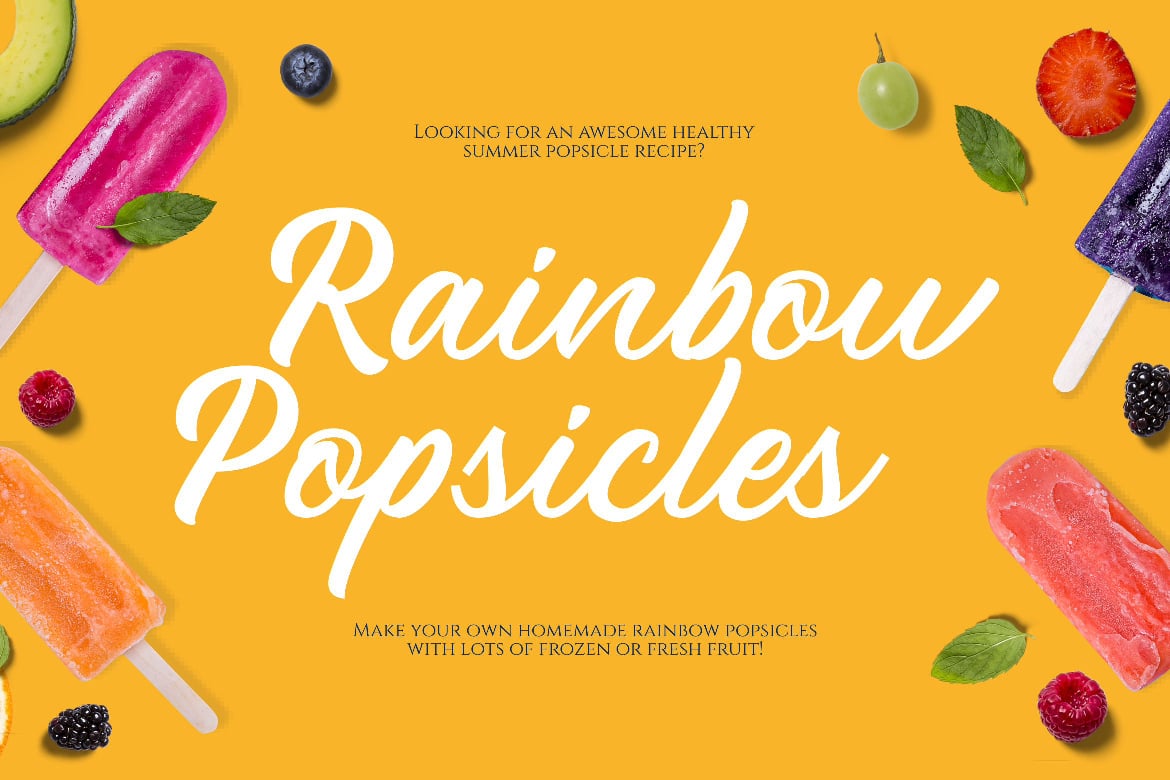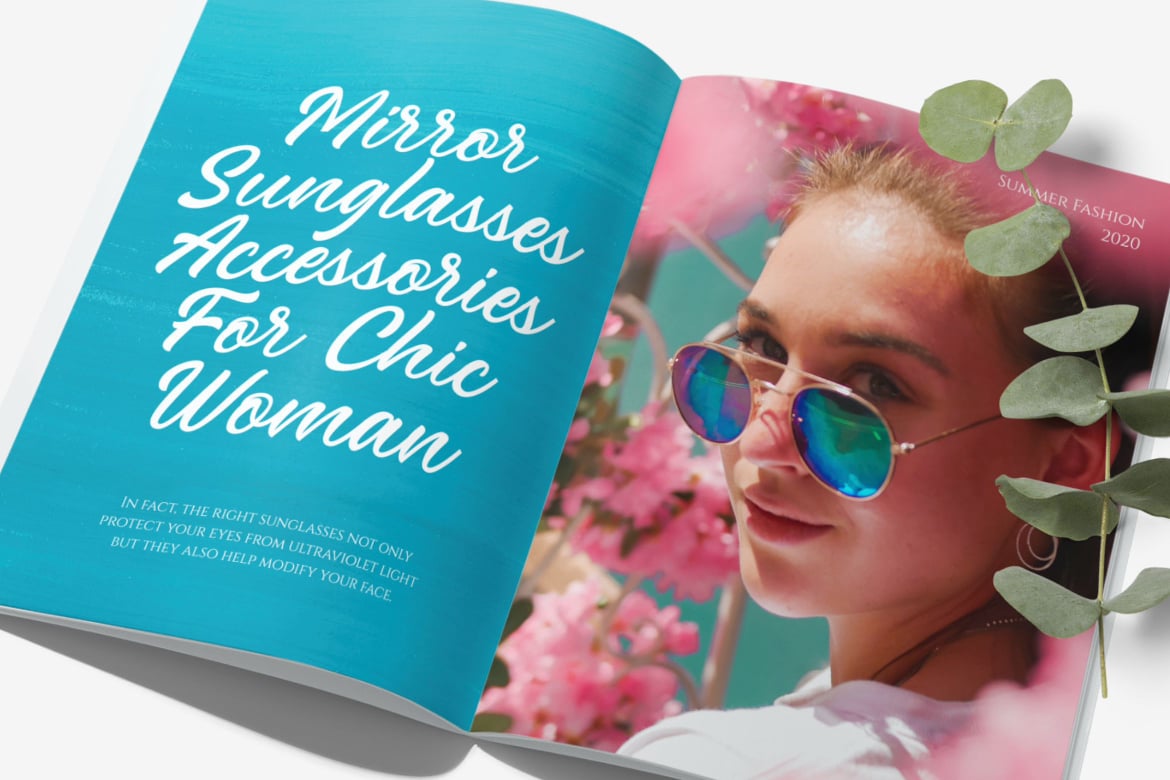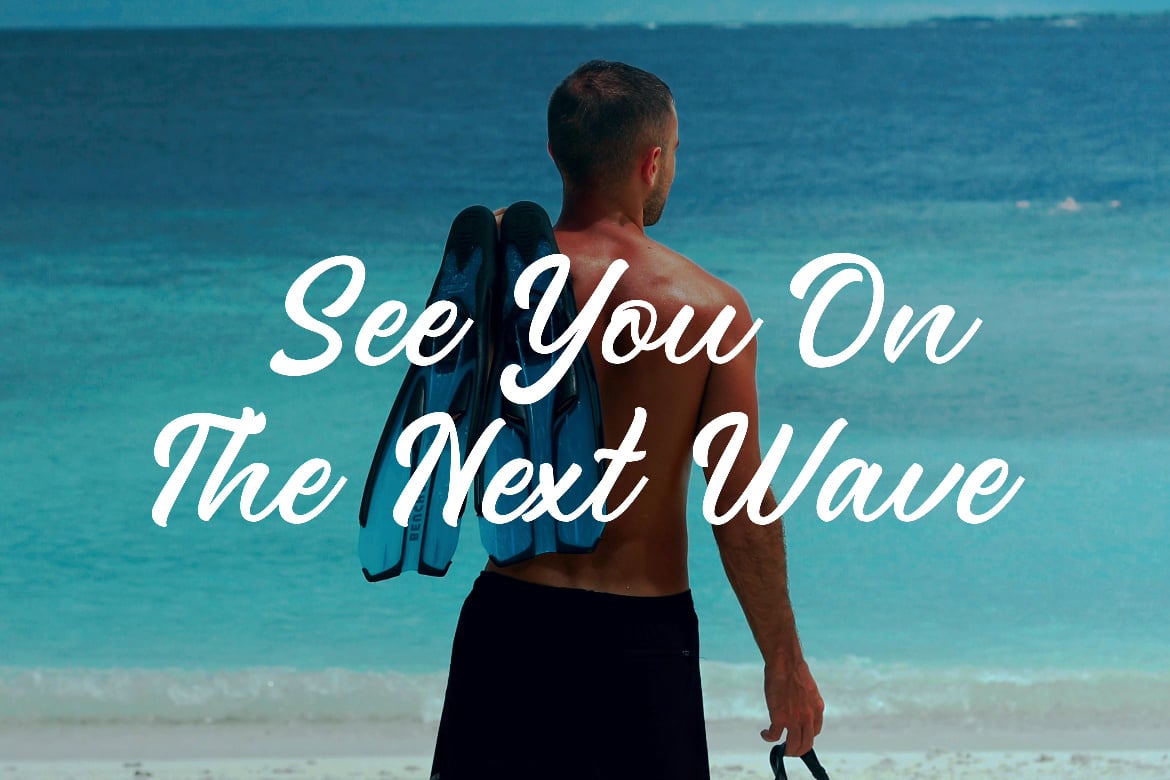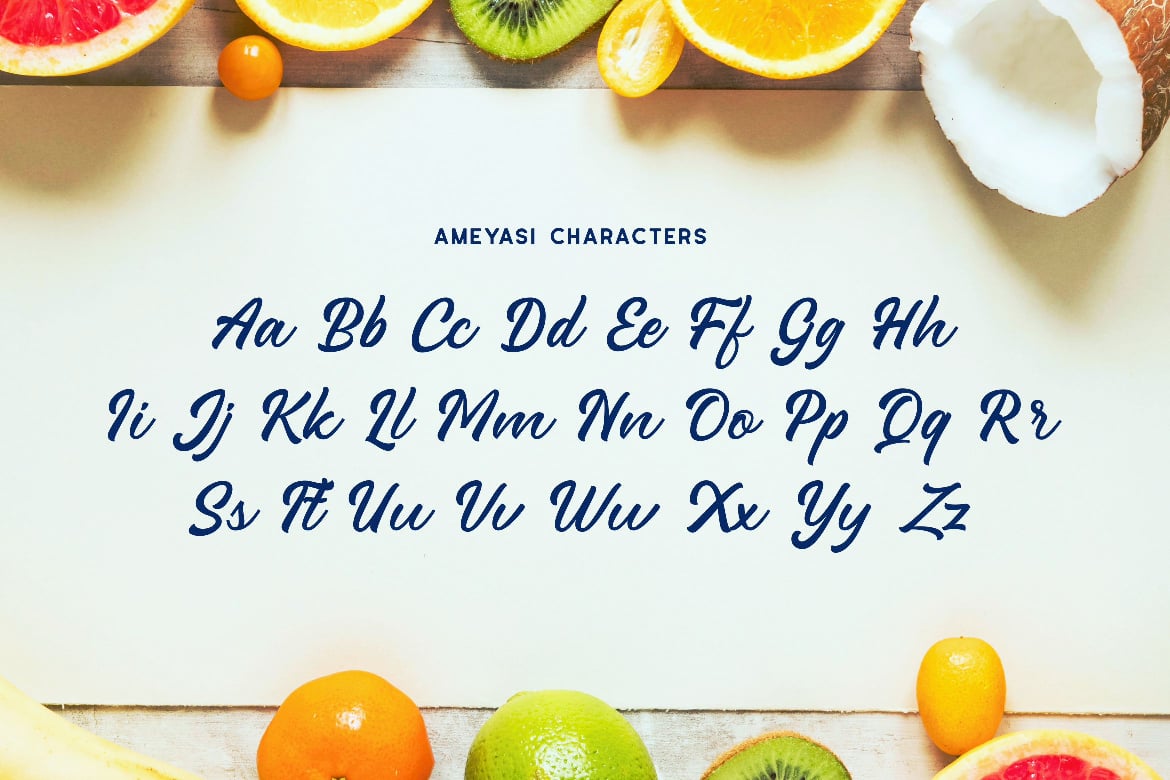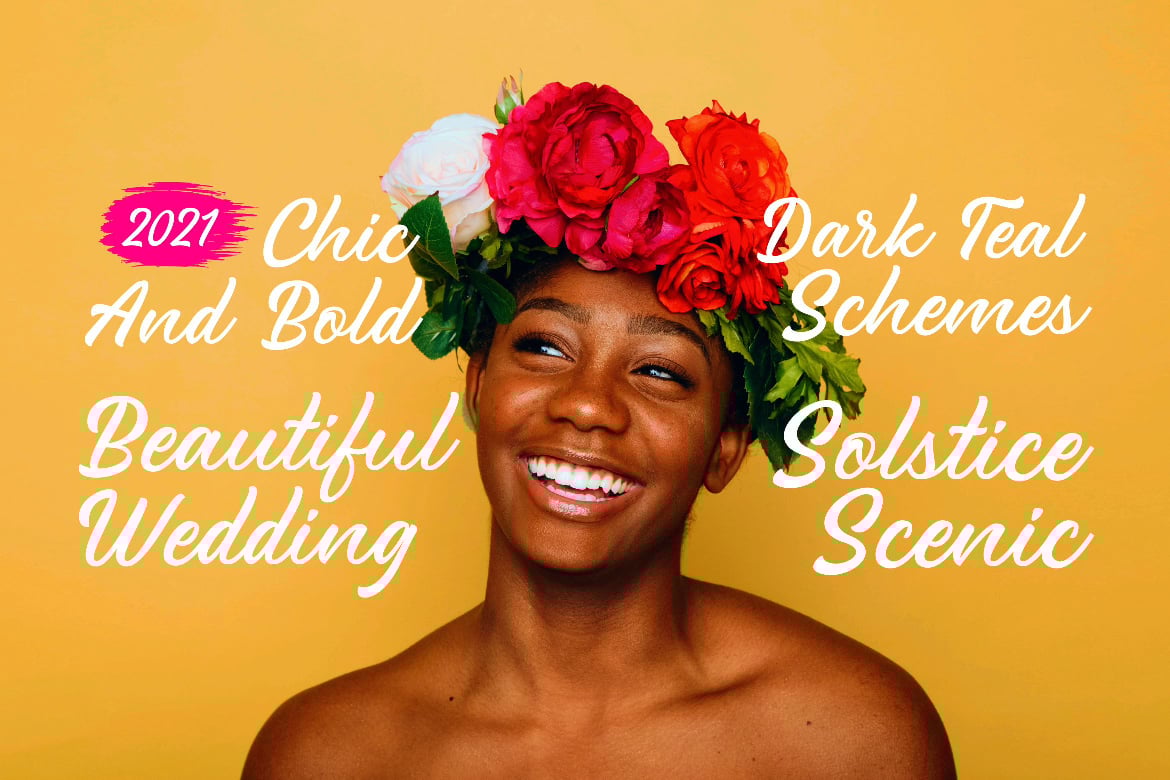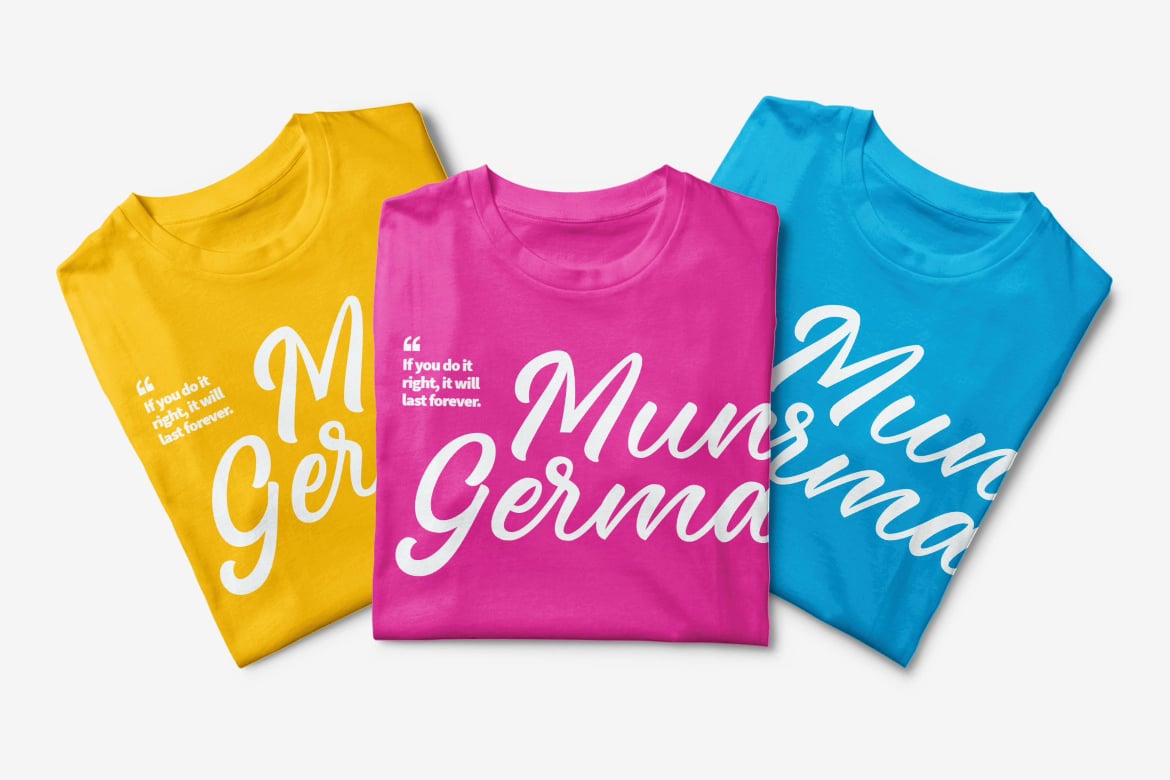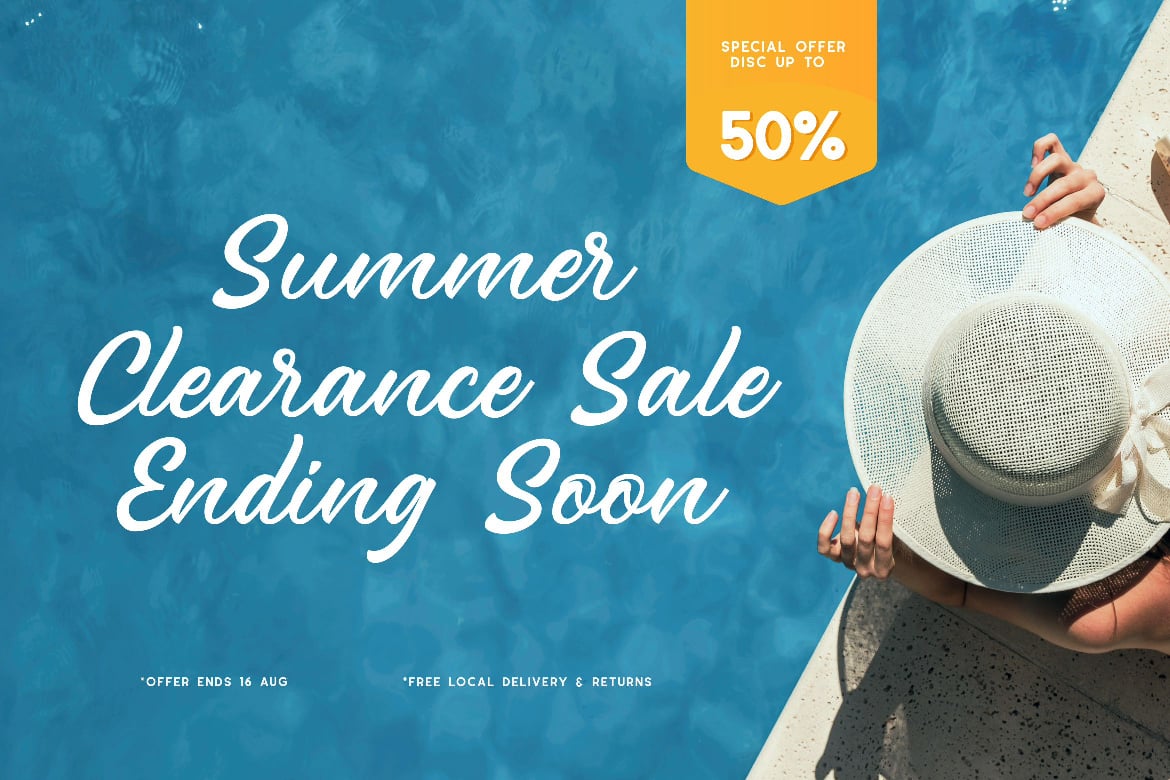
Script Font – Ameyasi
Ameyasi is a modern script Typeface with Multilingual Support, it has a style striking display font full of energy allowing you to create beautiful hand-made typography. Covering a wide range of project types such as perfect for logos, printed quotes, invitations, cards, product packaging, headers, and photography.